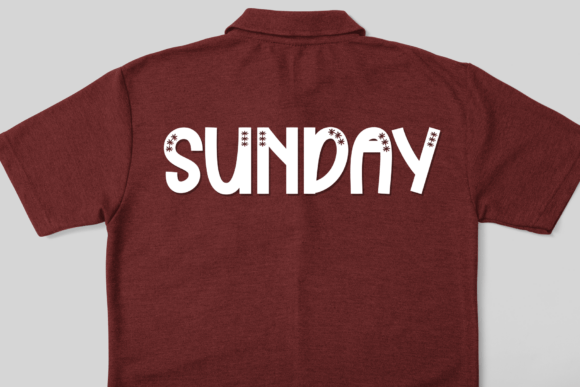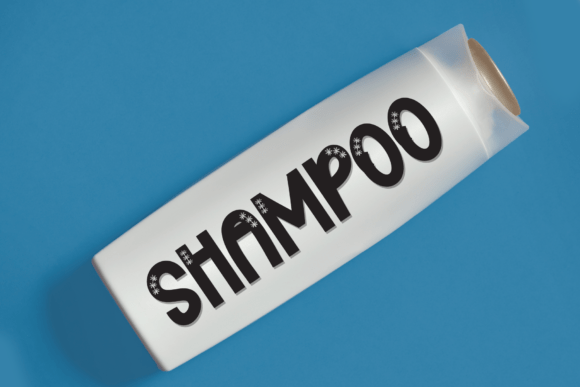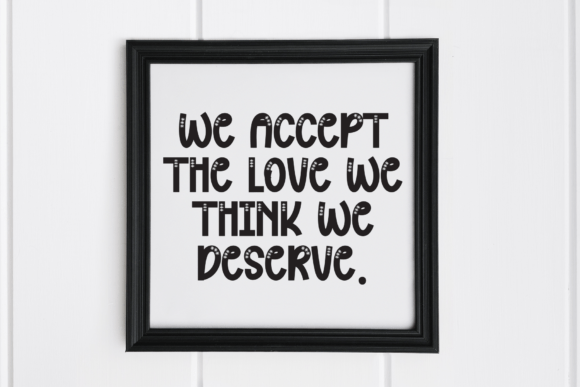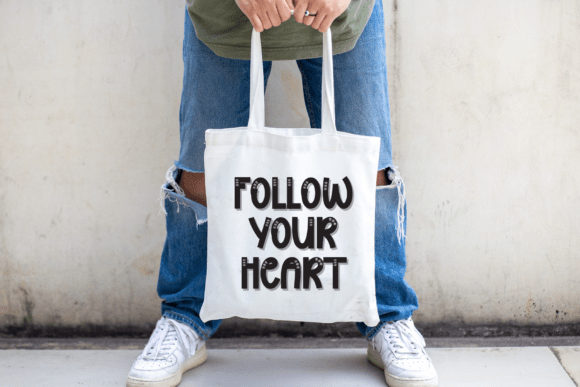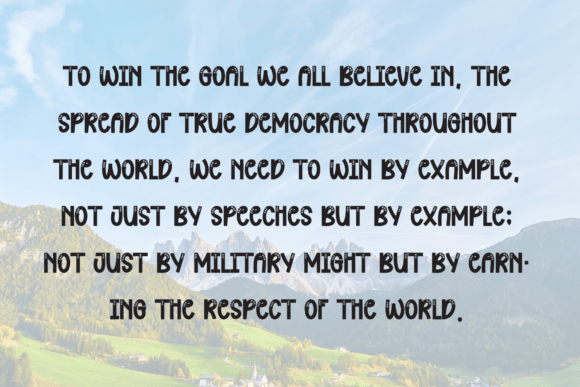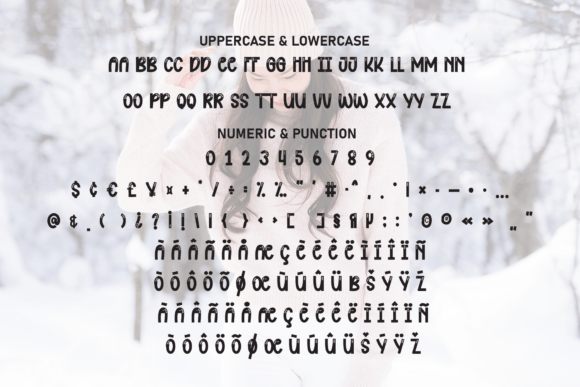
Introduction to Snow Girls Font
As a designer, there’s nothing quite like the thrill of stumbling upon a font that perfectly captures the essence of your creative project. You’re browsing through design resources, searching for the perfect combination of style and readability, when suddenly, you come across Snow Girls Font – a casual display font that instantly sparks inspiration.
With its modern simplicity and playful vibe, Snow Girls Font is the perfect addition to any design project. Its clean shapes, soft edges, and well-balanced letterforms make it an ideal choice for posters, branding, packaging, and social media graphics. Whether you’re working on a high-quality design or just need a fresh and friendly touch, Snow Girls Font delivers both readability and personality – making it a valuable resource for designers looking to elevate their creative work.
Key Features of Snow Girls Font
- Unique, hand-drawn design perfect for creative projects, such as children’s books, gift tags, and other design resources.
- High-quality font with transparent background, allowing for seamless integration with any design element.
- Includes a range of characters, including uppercase and lowercase letters, numbers, and special characters.
- Perfect for designers looking for a whimsical and playful font to add a touch of magic to their creative project.
Honest Review: Snow Girls Font
As a designer, I’ve had the pleasure of working with various fonts, and the Snow Girls Font is one of the most unique and charming ones I’ve come across. It’s perfect for creative projects that require a touch of whimsy and magic.
- High-quality design: The font is meticulously crafted with fine details and intricate designs that make it stand out.
However, I’ve noticed a few limitations:
- ⚠️ Limited character set: The font only includes a limited set of characters, which may not be suitable for longer texts or complex designs.
- ⚠️ Not suitable for all audiences: The font’s childlike design may not be suitable for all audiences or brands, especially those with a more serious tone.
Overall, I’m impressed with the Snow Girls Font’s unique design and high-quality details. While it has some limitations, it’s still a valuable resource for designers working on creative projects that require a touch of magic and whimsy.
The Snow Girls Font is perfect for creative projects such as birthday invitations, holiday cards, or social media graphics. Its unique design makes it an ideal choice for designers looking for a distinctive and eye-catching font.